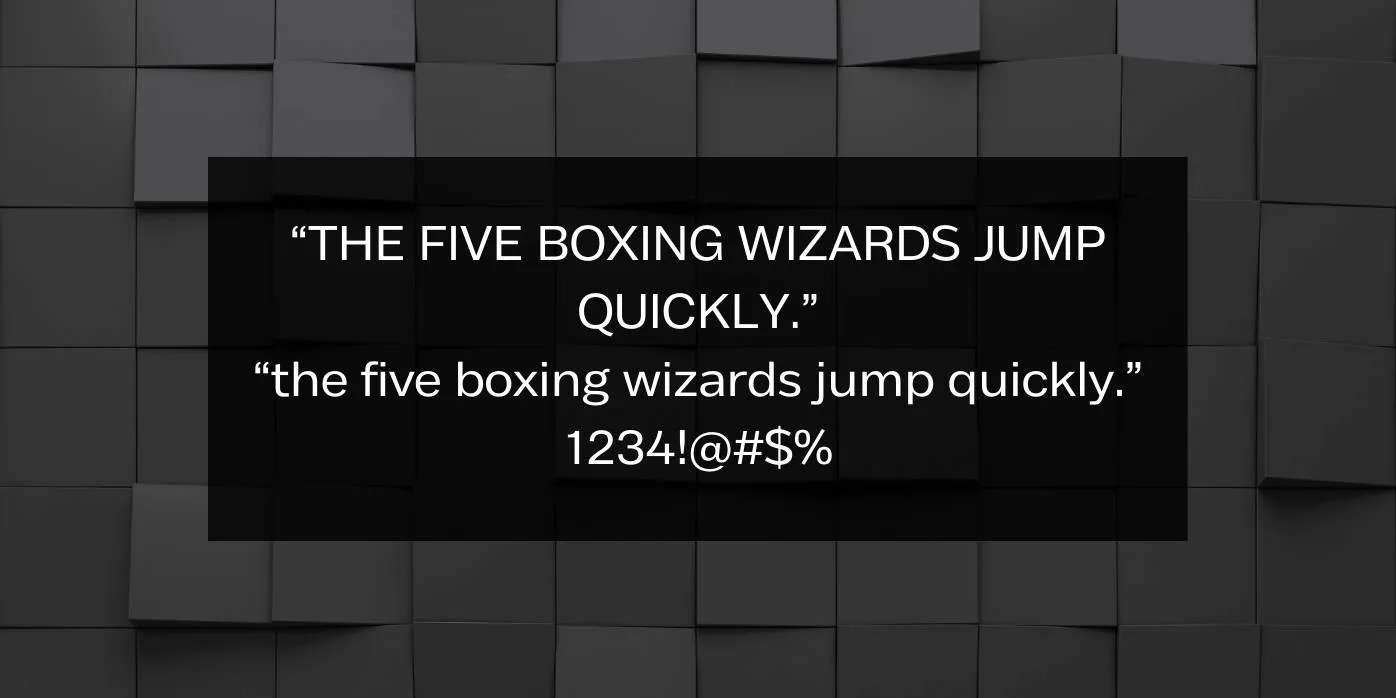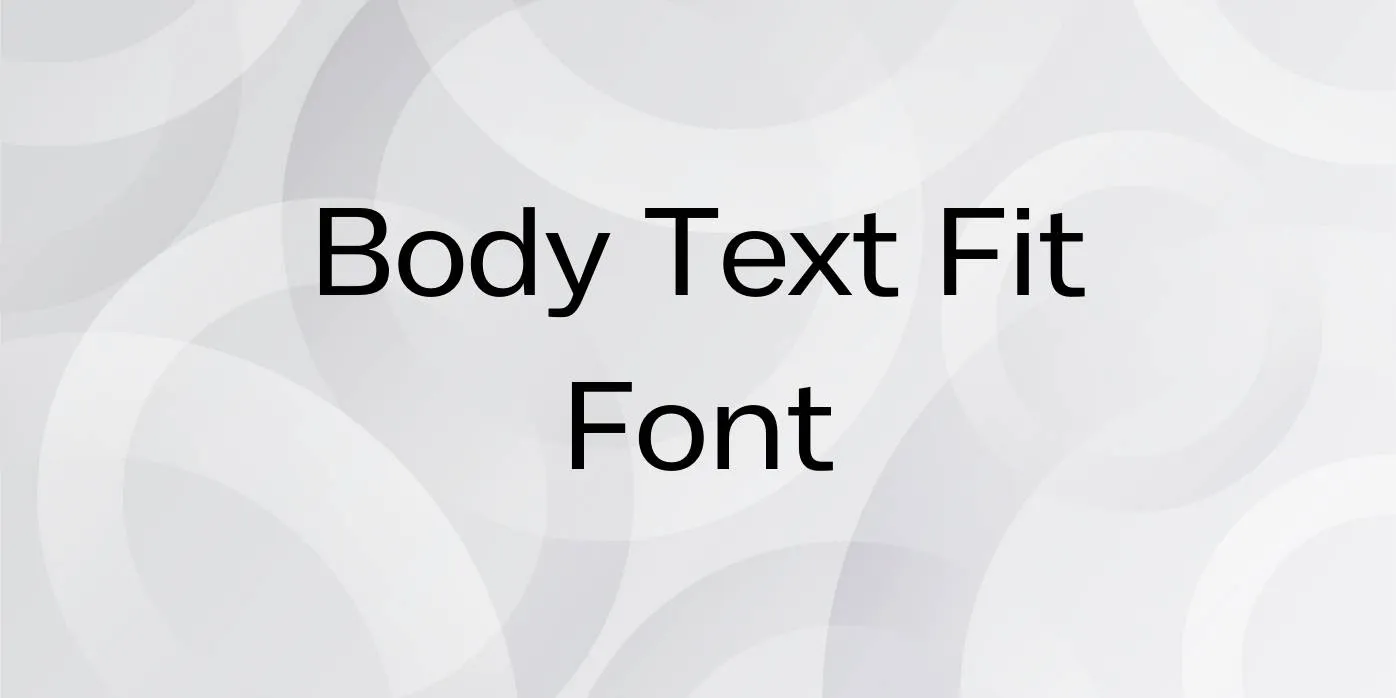
Body Text Fit Font
In this article, we introduce a stylish typeface known as Body Text Fit Font. This typeface belongs to the sans serif family.  It is a great choice for those who are looking for a versatile, modern, and professional-looking typeface. This typeface is best for CSS and HTML. This stylish font was designed by Daejun Park, a Korean-type designer.
The typeface features clean and thin letterforms. It is available in five weights: light, regular, medium, bold, and black. Body Text Fit Typeface supports Latin, Cyrillic, and Hangul characters. Its copy-and-paste function is best for different designs.
The generator tool of this typeface is very classic. You can use fox sans font which has the same style and characters as this one. This typeface is perfect for body text as it is easy to read even in small sizes. Additionally, the thin letterforms give it a stylish look that is perfect for creating impactful headlines or titles.
If you are looking for a versatile sans serif typeface that will make your text stand out, it is classic.